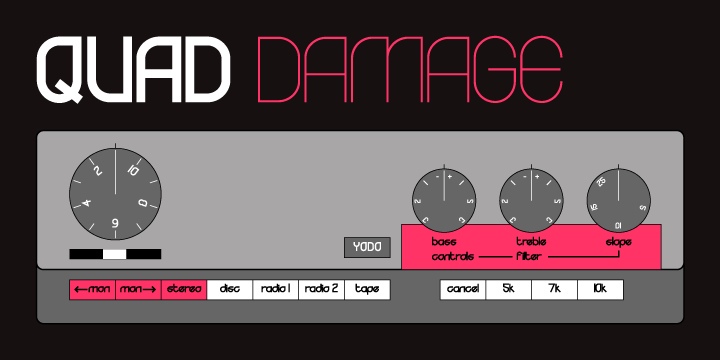
Yodo Font
Yodo Font is perfect for mindfulness meditation center branding, zen lifestyle boutique logos, yoga studio signage, spiritual retreat materials, holistic wellness spa graphics, Japanese tea house menus, meditation app interfaces, mindful living blog headers, contemplative art gallery signage, and peaceful sanctuary wayfinding systems. This serene typeface excels in applications where inner peace, spiritual balance, and mindful simplicity are essential brand characteristics.
What makes Yodo Font exciting is its masterful embodiment of zen philosophy through carefully balanced letterforms that achieve perfect harmony between form and emptiness, creating an atmosphere of tranquil contemplation and inner stillness. The font features clean, purposeful character construction with subtle organic influences that reflect the natural flow of breath and the gentle rhythm of mindful awareness. Its peaceful presence immediately communicates serenity and wisdom, making it perfect for brands that guide people toward greater self-awareness and spiritual well-being.
The Yodo Font family typically includes Light and Regular weights, often accompanied by ultra-light variations that enhance the ethereal, minimalist aesthetic essential for contemplative applications. Many versions feature extended character sets with meditation symbols, mindfulness icons, and decorative elements inspired by Japanese calligraphy and zen garden principles. Some collections include alternate characters with enhanced spiritual characteristics and ornamental flourishes that reflect traditional meditation practices and contemplative arts.
Whether you're developing brand identities for wellness organizations, creating materials for spiritual retreats, or designing content that promotes mindful living and inner peace, Yodo Font Free Download provides the authentic zen character that resonates with seekers of spiritual growth and peaceful living. Its calming presence makes it ideal for businesses focused on helping people find balance, reduce stress, and cultivate greater awareness in their daily lives. The font's ability to convey both spiritual depth and accessible tranquility makes it particularly valuable for meditation teachers, wellness practitioners, and mindful lifestyle brands seeking to create sacred spaces where people can reconnect with their inner wisdom and find lasting peace.